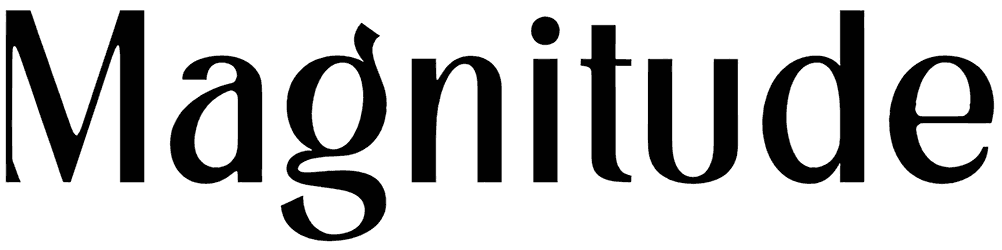
Magnitude Font
The Magnitude is a basic font that, due to its professional appearance, is an excellent choice for use in projects that are intended to have official designs. Some examples of such projects include advertisements, public…
The Magnitude is a basic font that, due to its professional appearance, is an excellent choice for use in projects that are intended to have official designs.
Some examples of such projects include advertisements, publications, packages, and garments. This font will save your boring images and give them the flair they’ve been missing. Get this serif font as soon as possible if you want to add a little bit of merriment to the next project you work on.